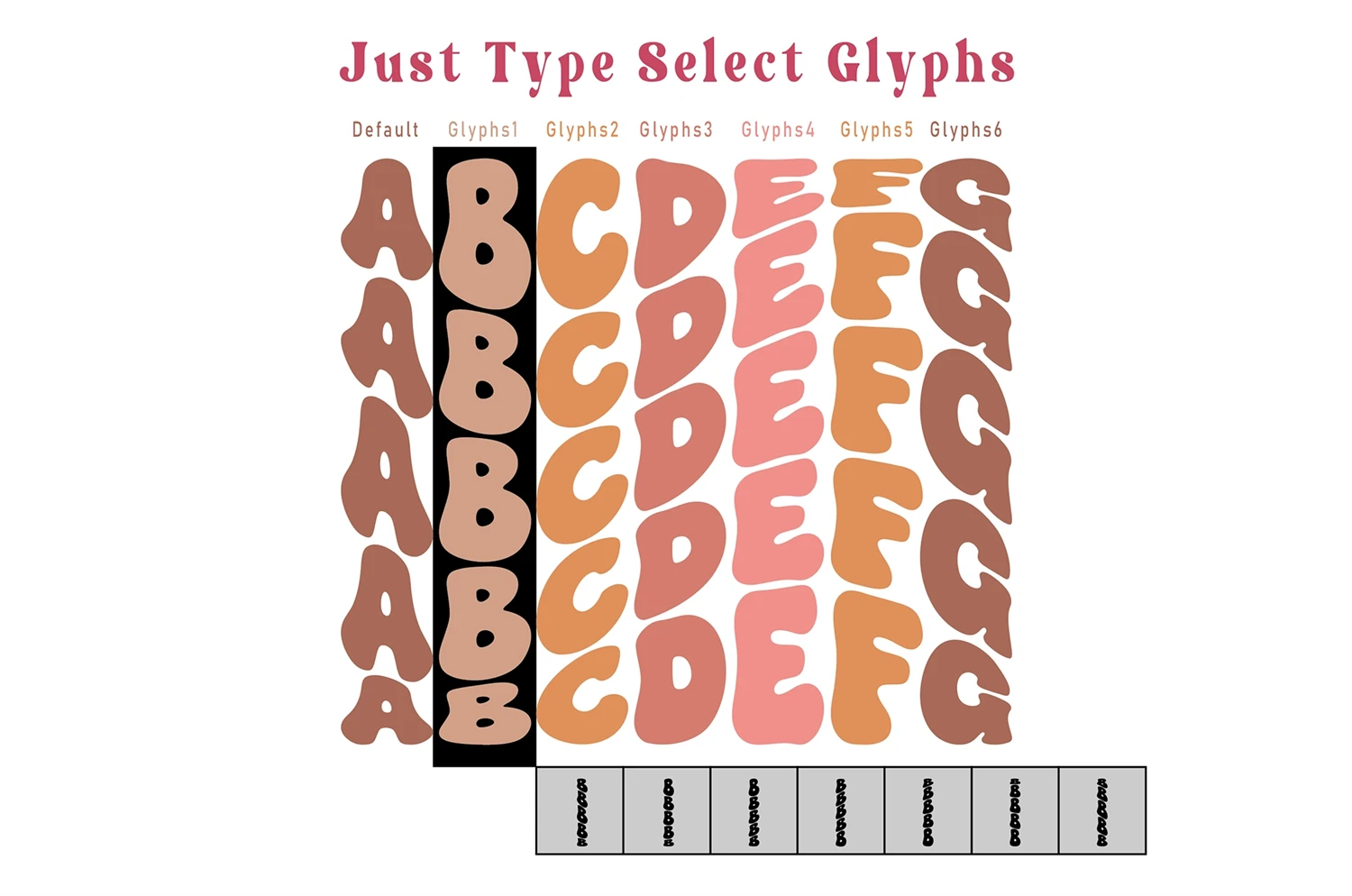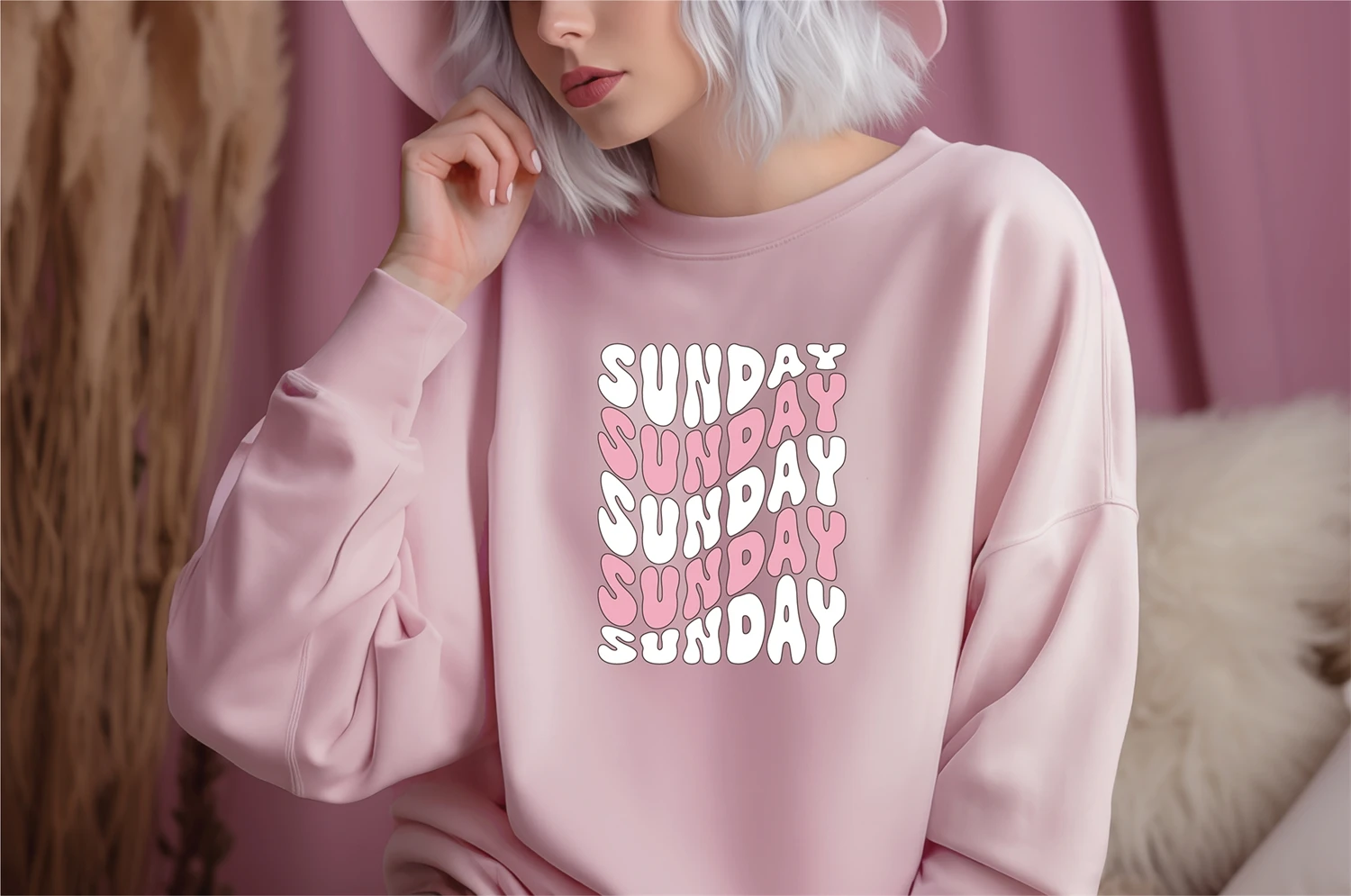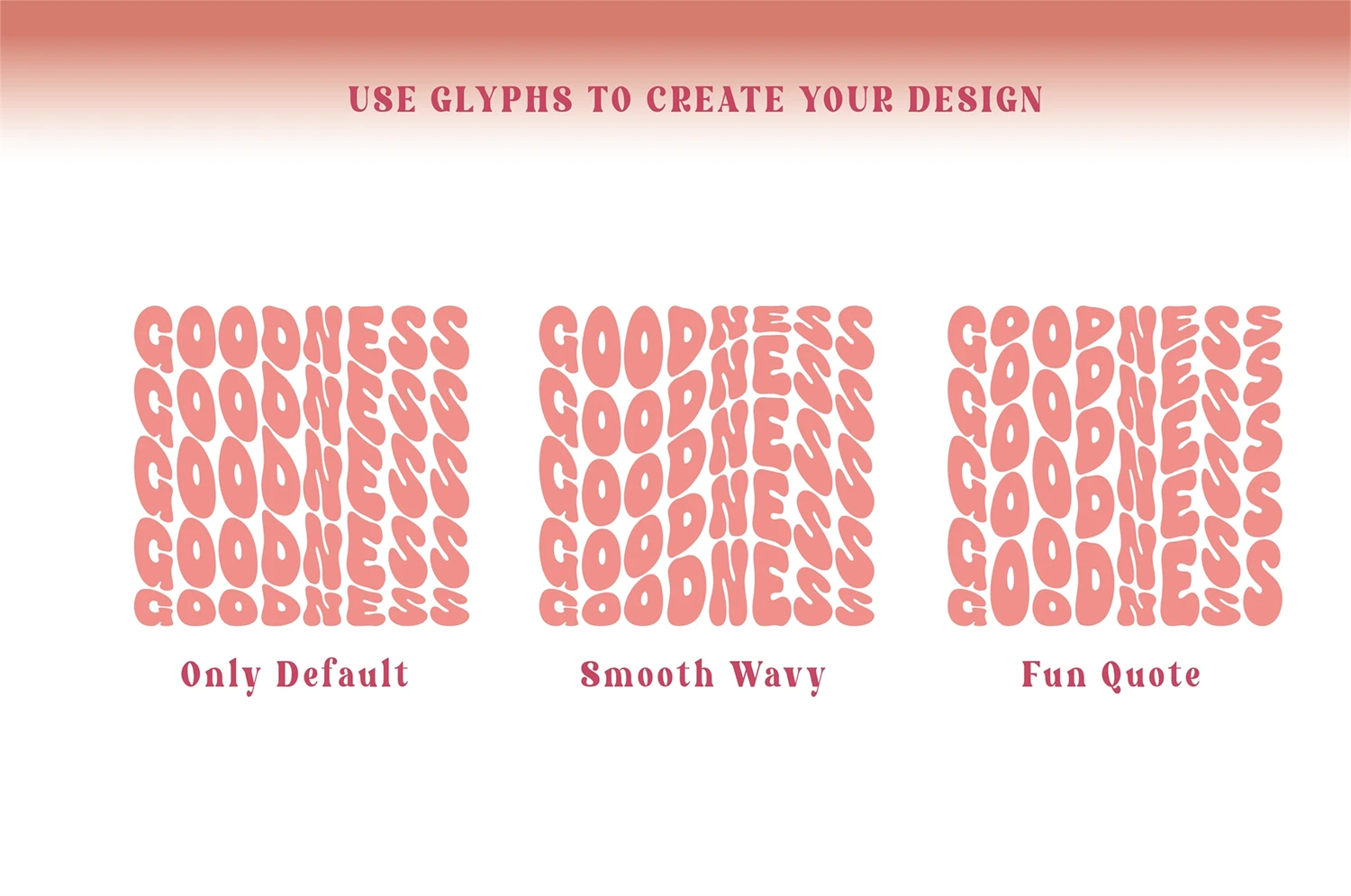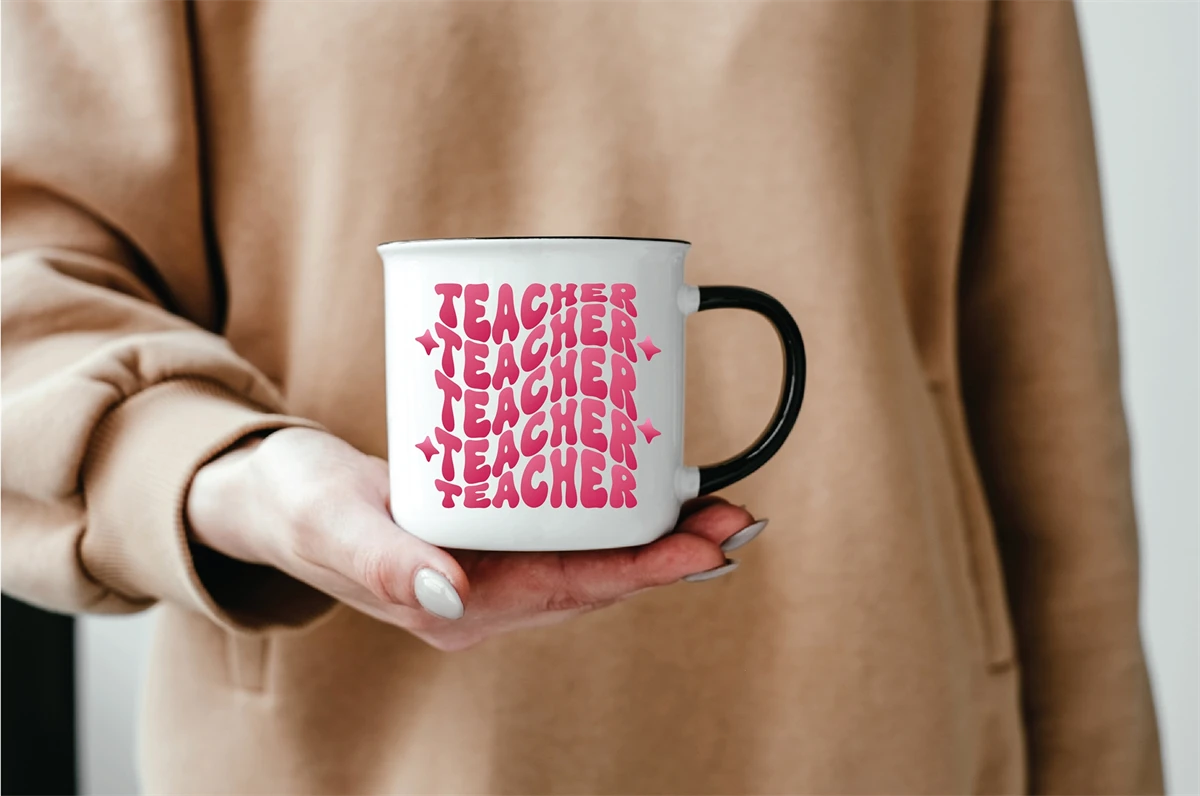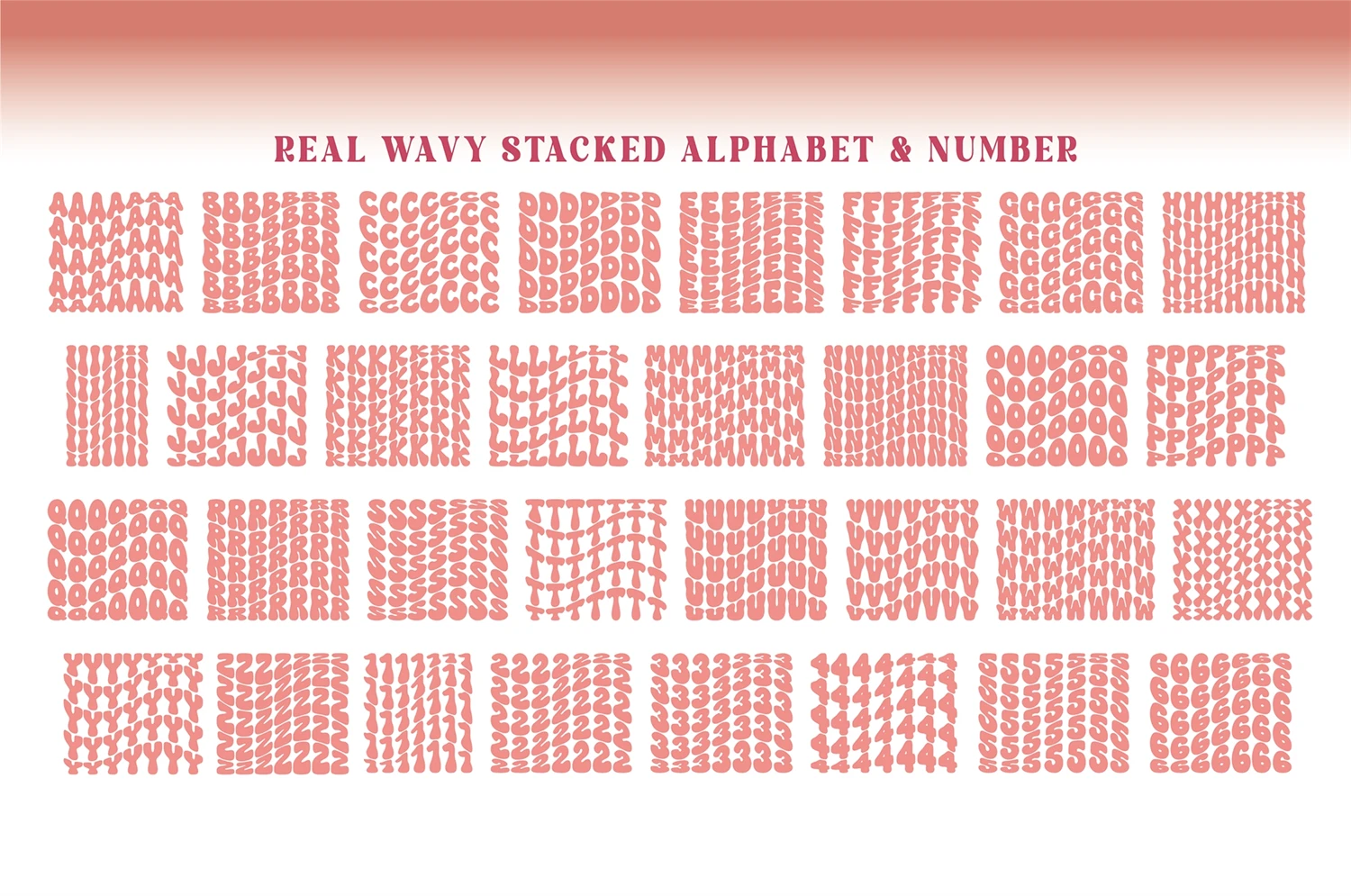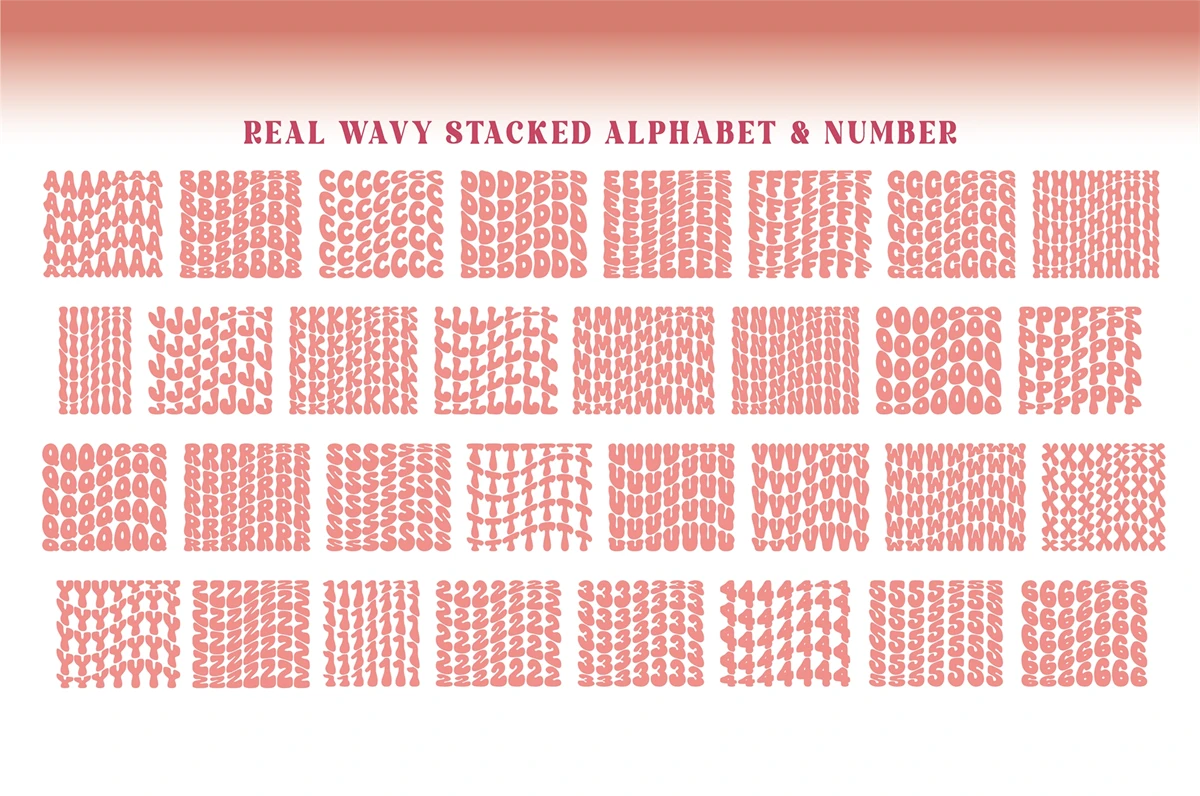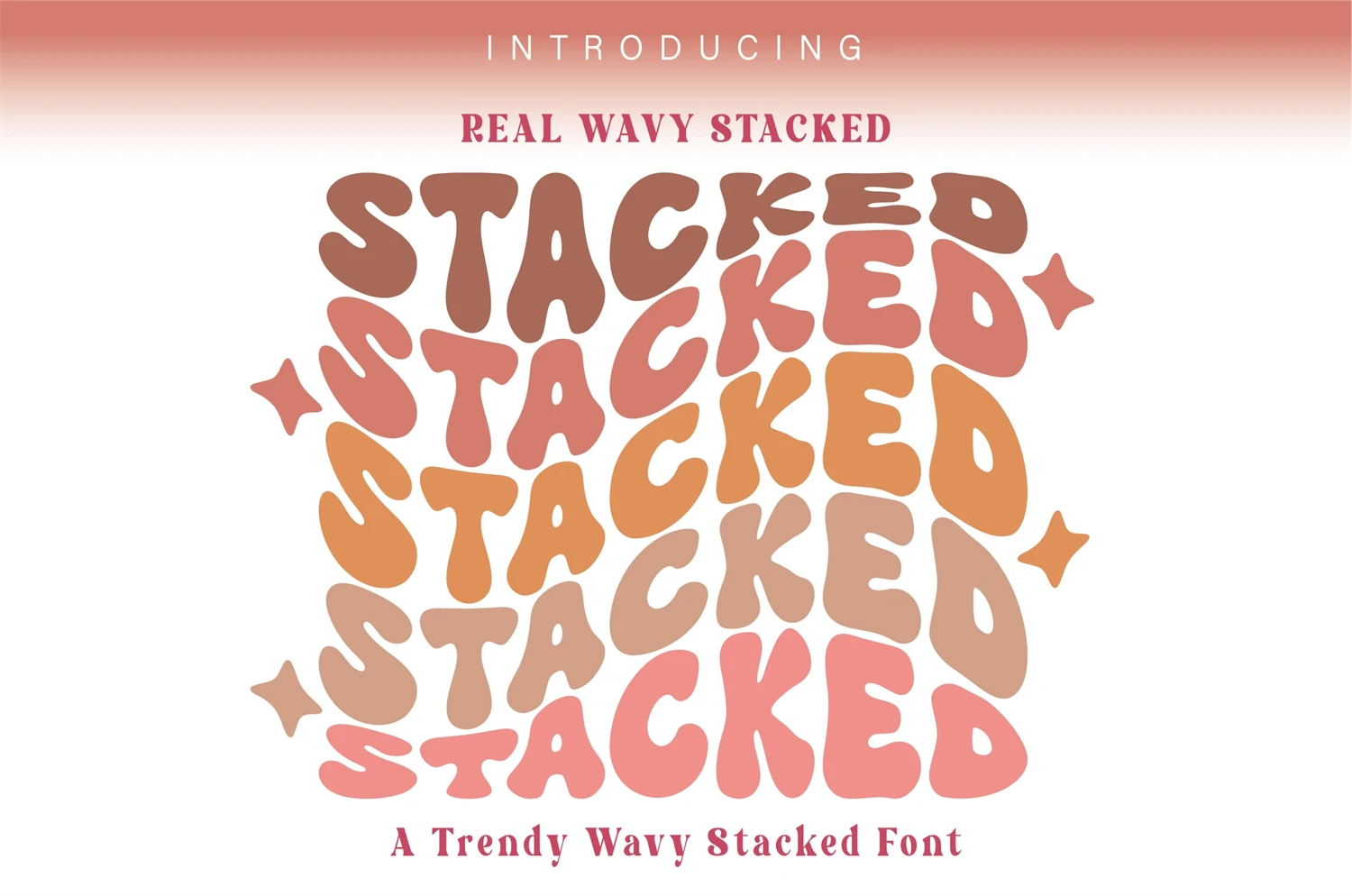
Real Wavy Stacked is retro font with wavy and stacked style. Easy to create design trendy quote, logo, head title by yourself. This font is encoded which means you can access all of the amazing 7 glyphs and ligatures with ease!